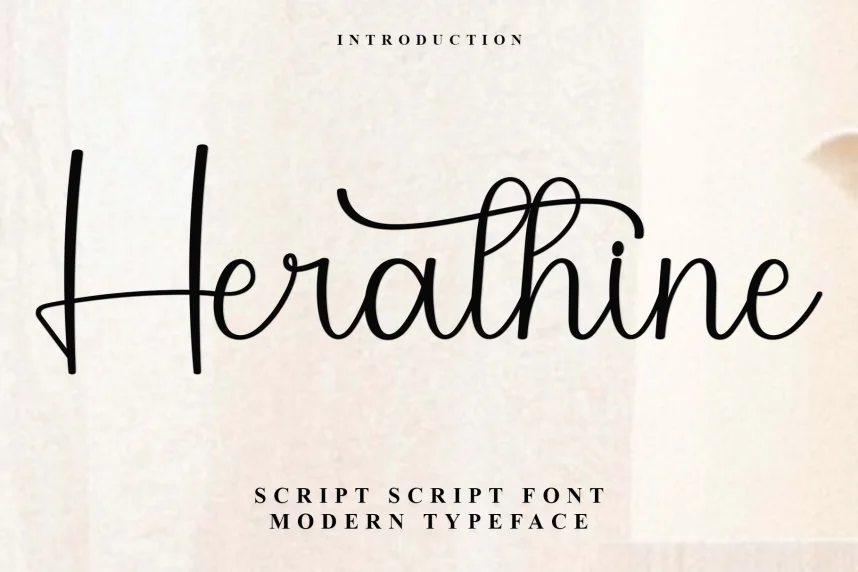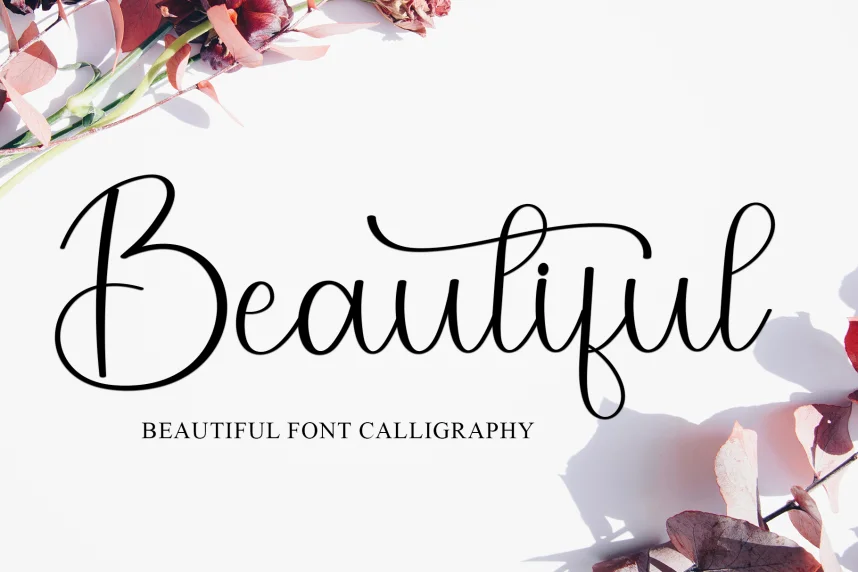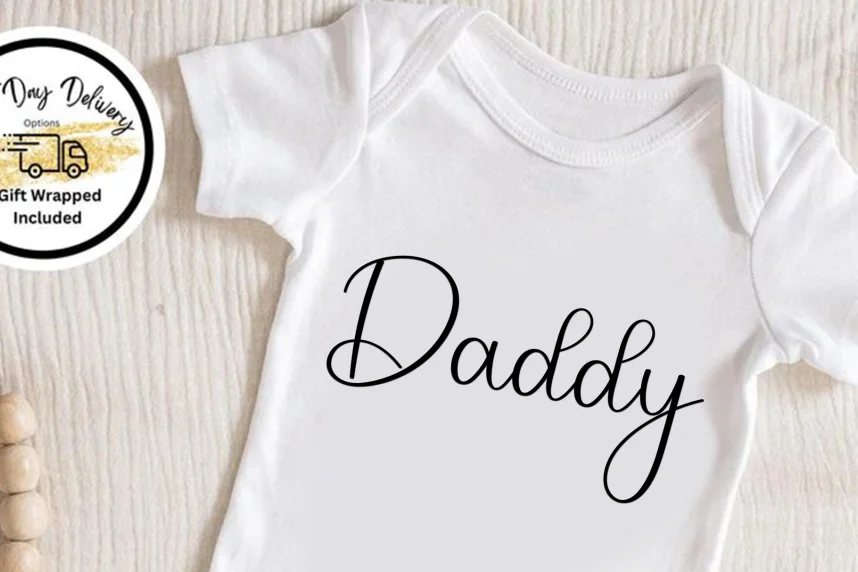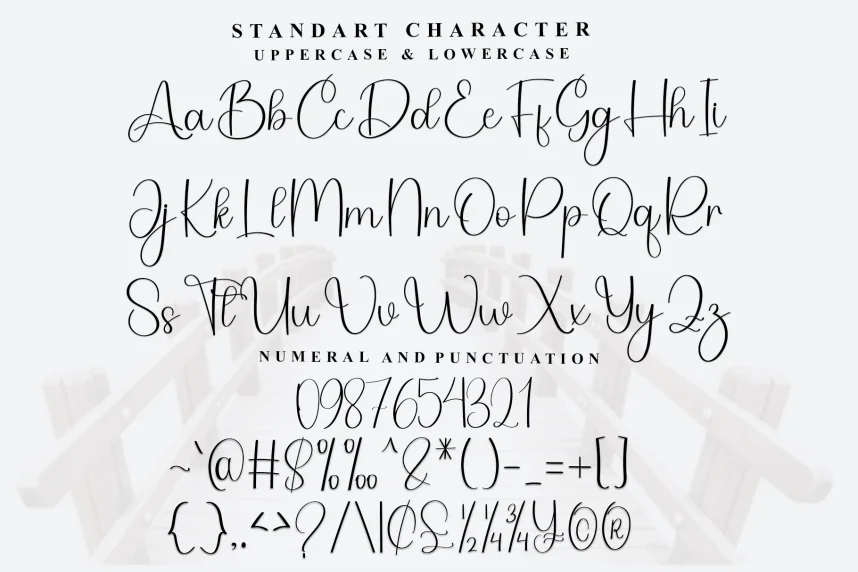
Herathine Simple Handwritten Font solves a common design challenge by adding a personal, handwritten style while maintaining clarity and elegance. Designers use this type of font for clean, minimal text that needs a human touch.
Herathine Simple is a script font with subtle curves and minimal contrast between thick and thin strokes. The letterforms are smooth, consistent, and easily readable, making it suitable for both small and large-scale projects.